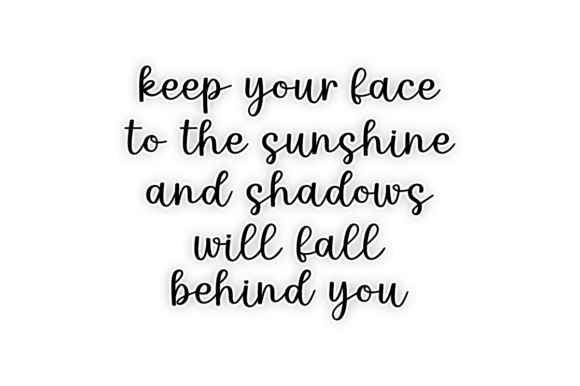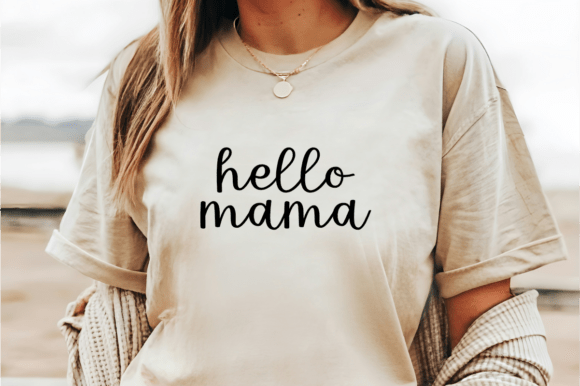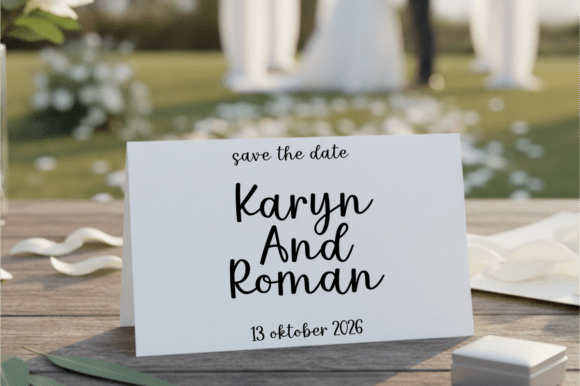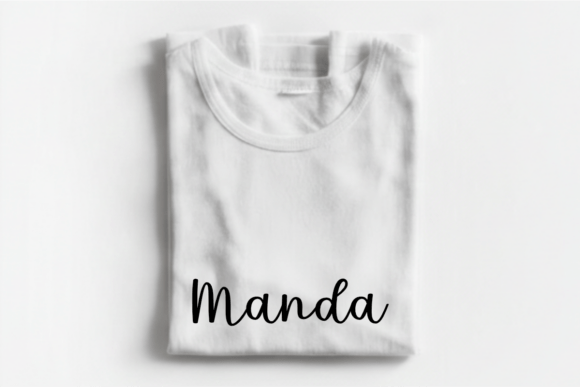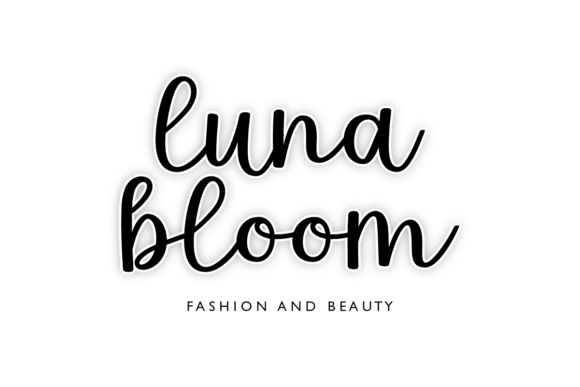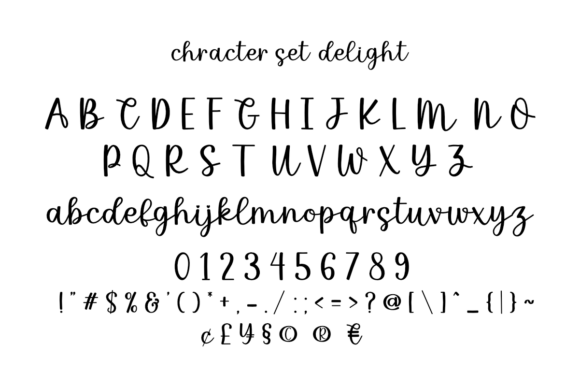
Bringing Delight to Your Designs: A Comprehensive Guide to the Delight Font
Ah, the elusive perfect font. You know, that one that makes your design shine, speaks to your audience, and makes you feel like a total rockstar. I’ve been there, friends – stuck in a design rut, searching high and low for that magic font that brings warmth and personality to my projects. And then, I discovered Delight.
As I was working on a wedding invitation project, I realized that I needed a font that exuded joy, love, and a touch of whimsy. The client’s request was simple: create an invitation that felt personal, sincere, and stylish. After scouring the internet and trying out a dozen fonts, I stumbled upon Delight – a modern handwritten script font that stole my heart.
Delight Font: A Personal Review
- ✅ Fluid curves and unique details, like adorable little hearts, that add a touch of whimsy to any design
- ✅ Perfect balance of modernity and elegance, making it suitable for a wide range of projects
- ✅ Highly readable, even at smaller font sizes – a must for any design project
- ✅ Extensive OpenType features, including stylistic alternates and glyphs, that allow for endless creativity
- ⚠️ Some users may find the font’s playfulness too much for very formal or corporate projects
- ⚠️ Limited use of uppercase letters, which may require creative workarounds for certain designs
The Story Behind Delight Font
Delight Font was designed with one goal in mind: to bring joy and warmth to every design. The creator, a passionate typographer, wanted to craft a font that felt personal, sincere, and stylish – perfect for special occasions, everyday designs, and everything in between. Inspired by the beauty of handwritten script and the playfulness of modern typography, Delight was born.
| Font Name | Delight Font |
| Author | Sakti Avellin |
| Is Delight Font suitable for body text? | While Delight Font is highly readable, it’s best suited for titles, headings, and short paragraphs. For longer body text, consider pairing Delight with a complementary font. |
And there you have it, friends! Delight Font is a versatile, beautiful addition to any design project. With its unique personality, extensive OpenType features, and wide range of uses, Delight is sure to bring warmth and joy to every design.